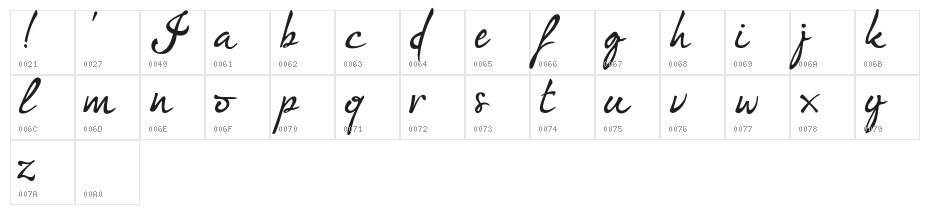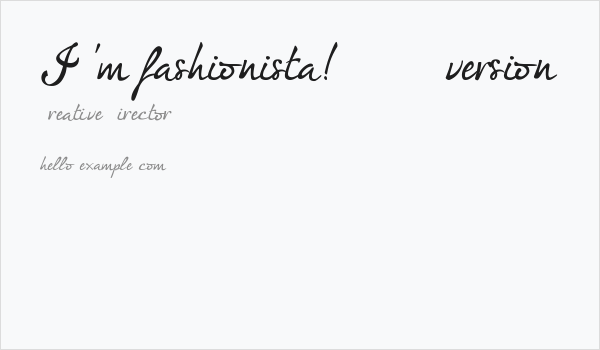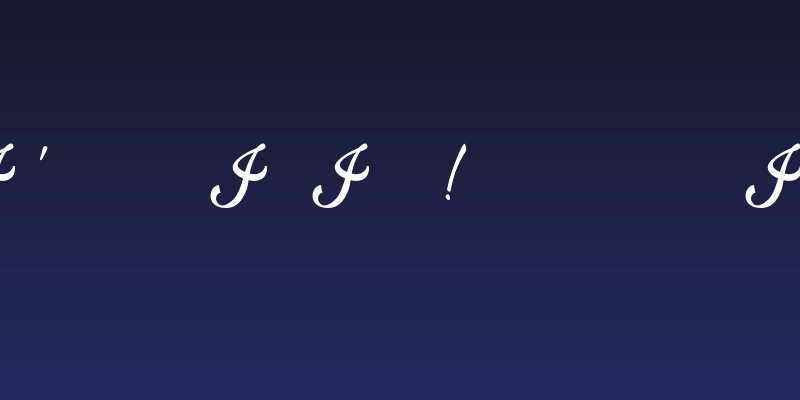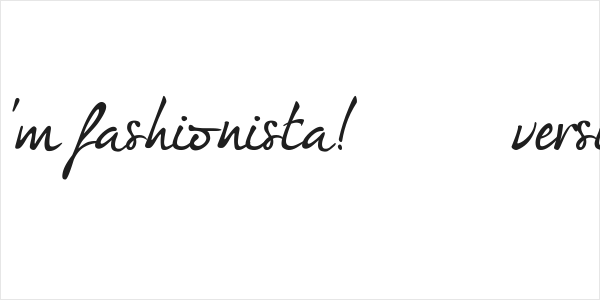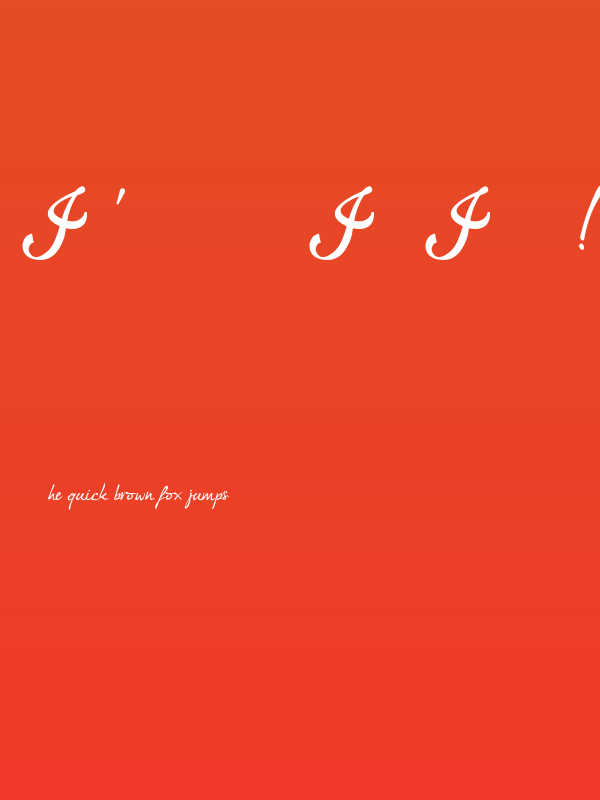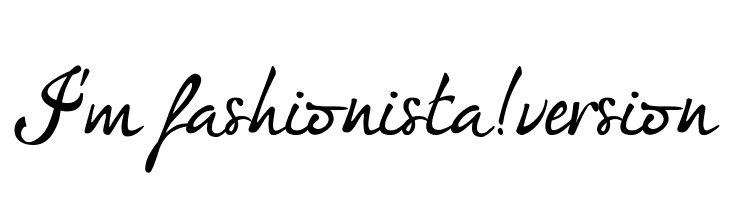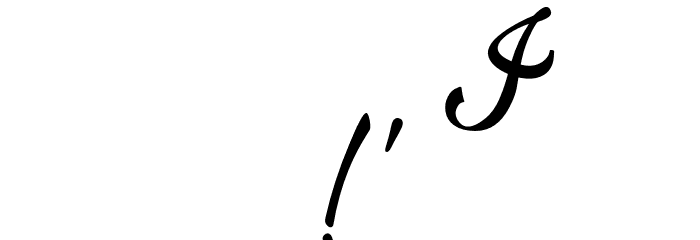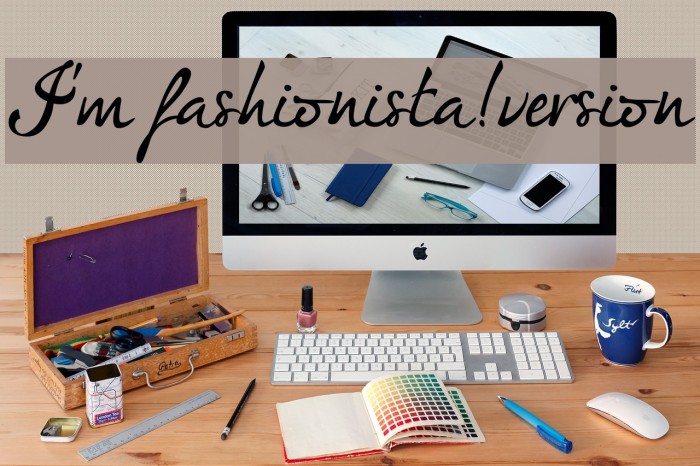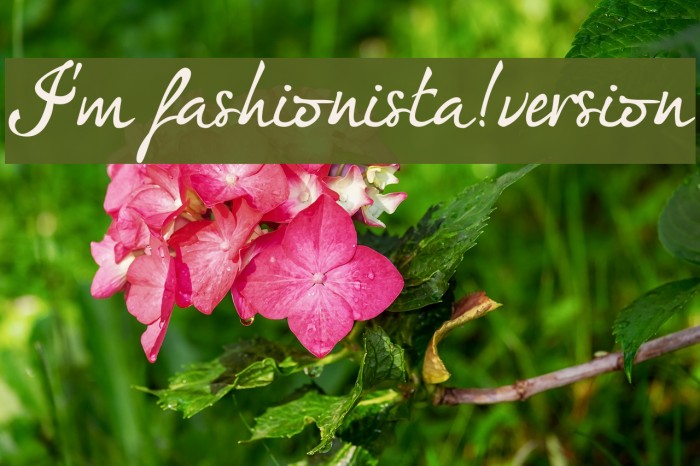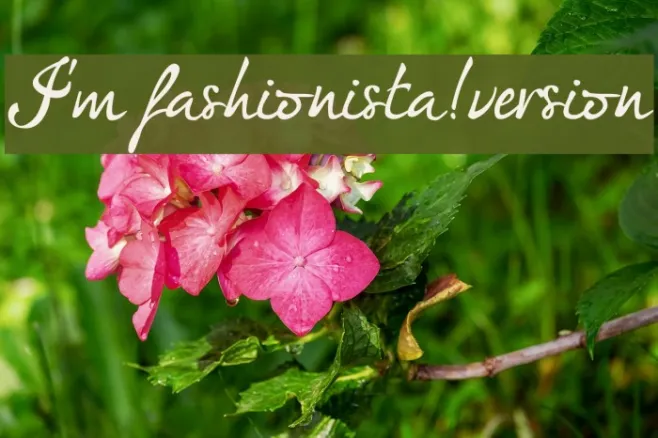
I'm fashionista!_DEMO-version Font
I'm fashionista!_DEMO-version Description
This font exudes a stylish and elegant handwritten script style, characterized by its fluid and graceful strokes. The letters are connected in a cursive manner, giving it a seamless and flowing appearance. The uppercase letters are bold and prominent, while the lowercase letters maintain a consistent and harmonious flow. The font's design is reminiscent of classic calligraphy, with a modern twist that makes it suitable for contemporary design projects. Its artistic flair and sophisticated look make it ideal for fashion-related branding, invitations, and other creative endeavors.
| Use Case | Logos, Invitations, Branding |
| Proposed Projects | Ideal for fashion branding, wedding invitations, greeting cards, and elegant logo designs. |